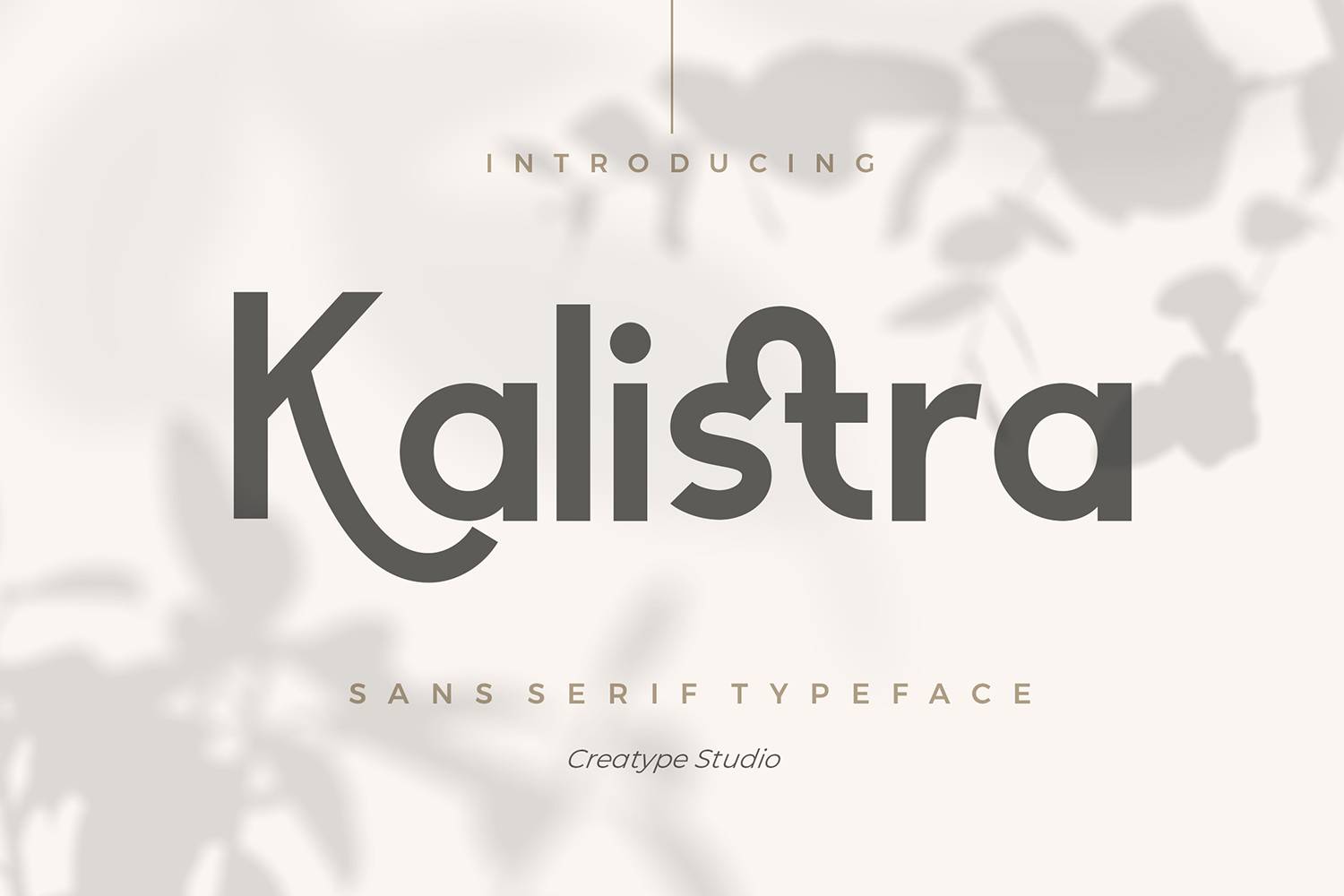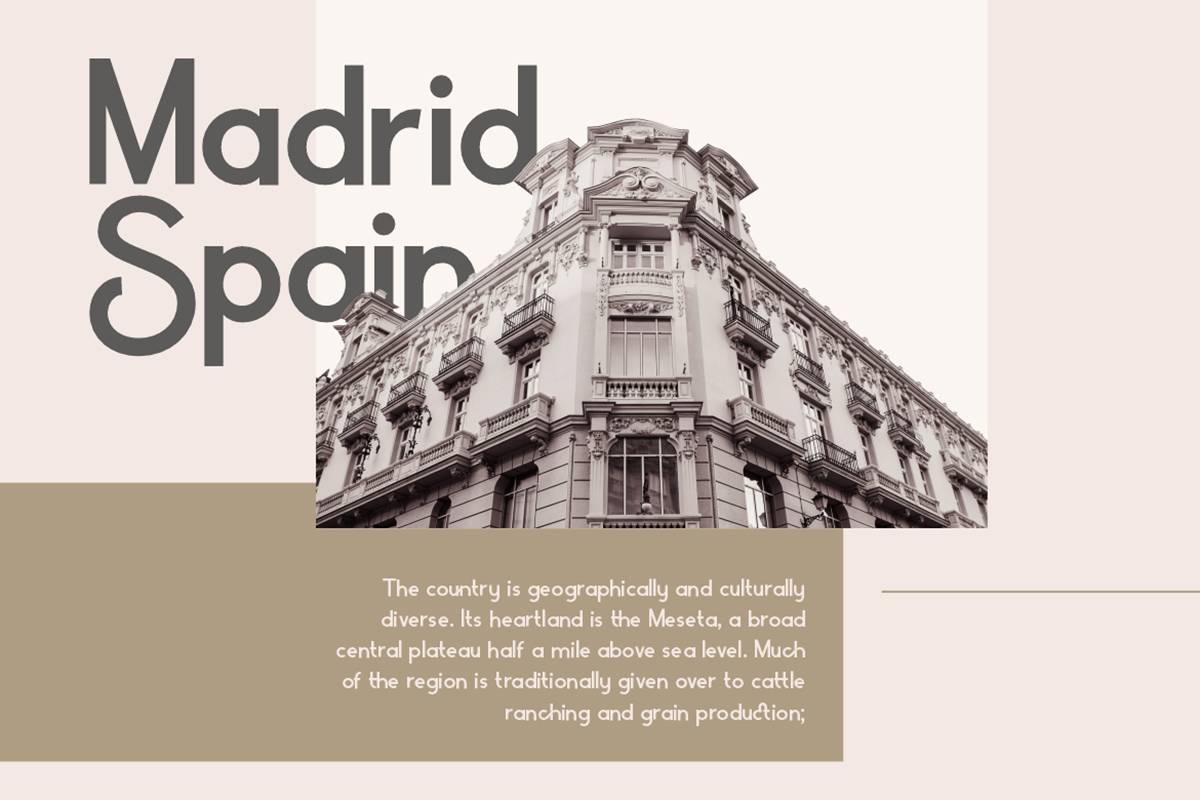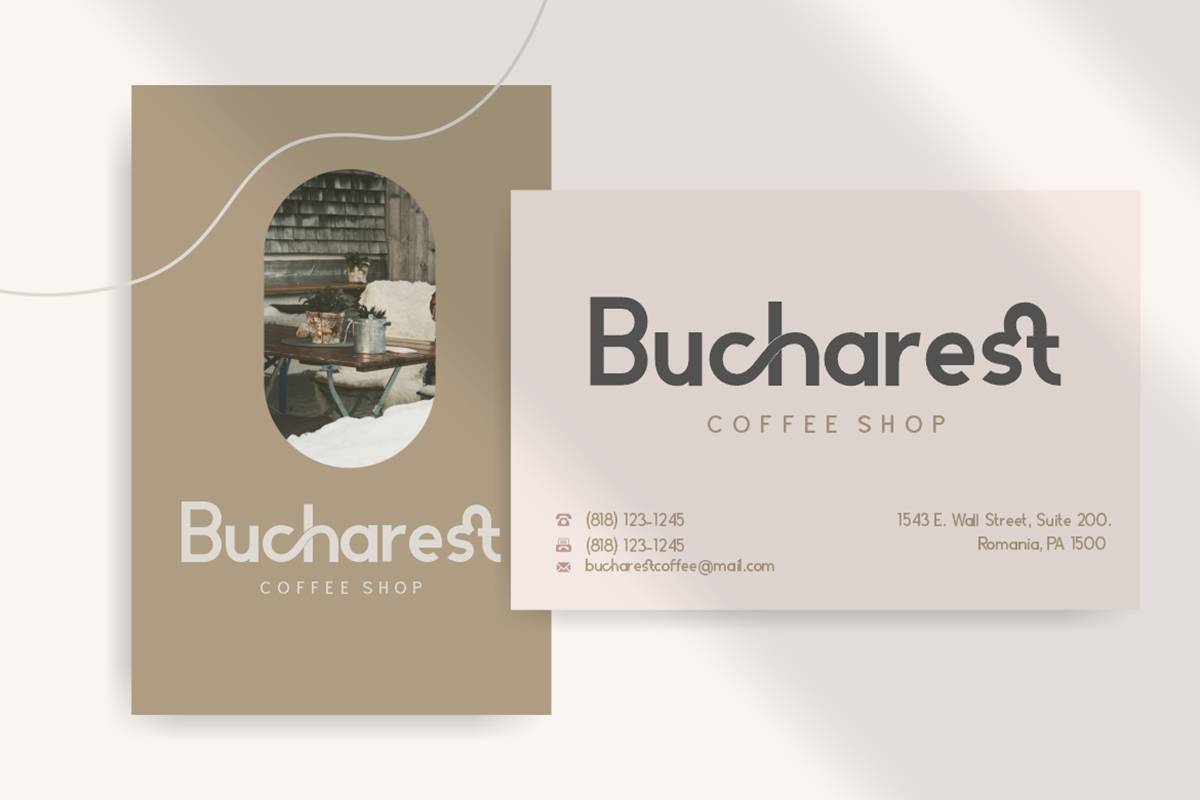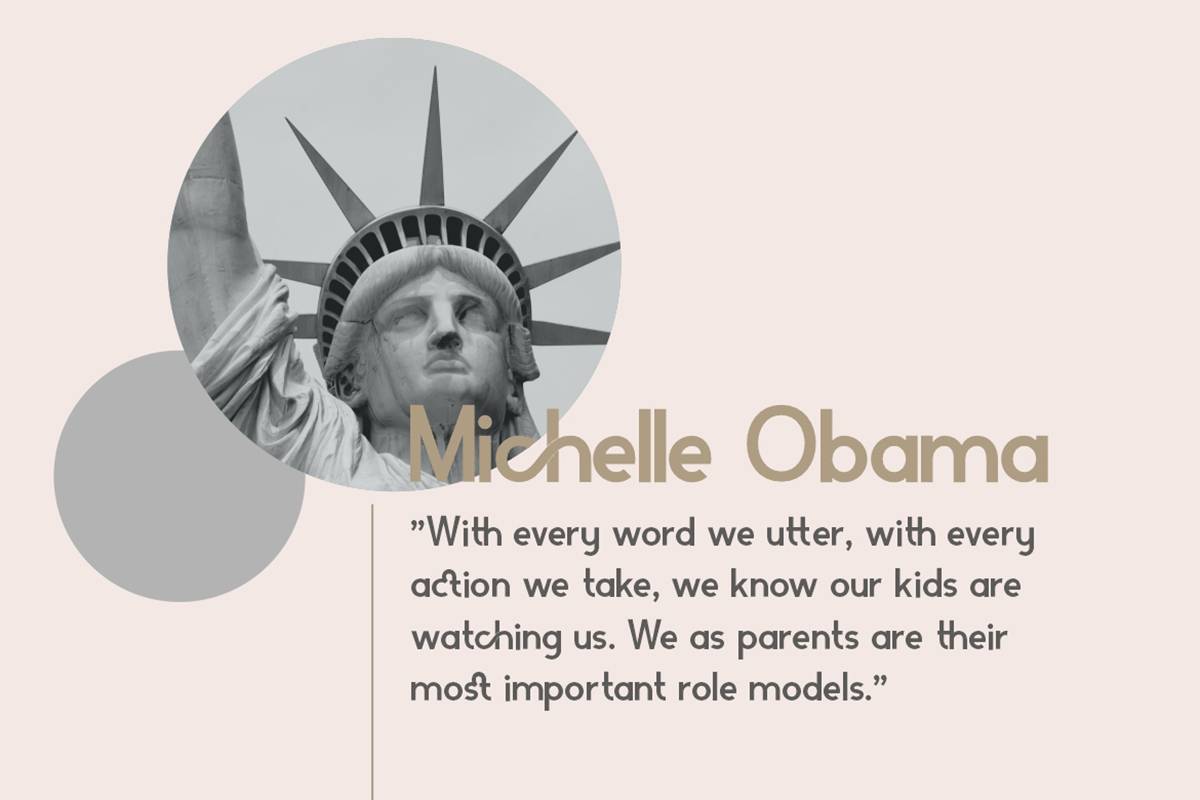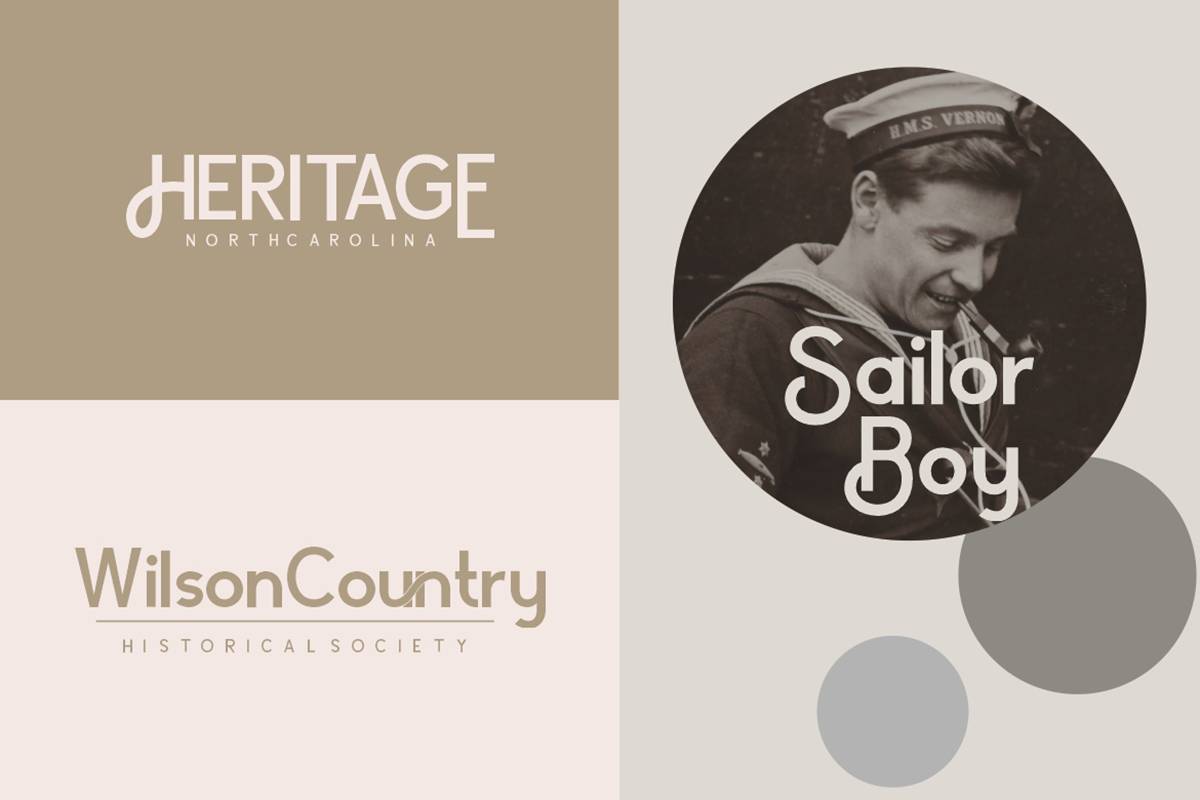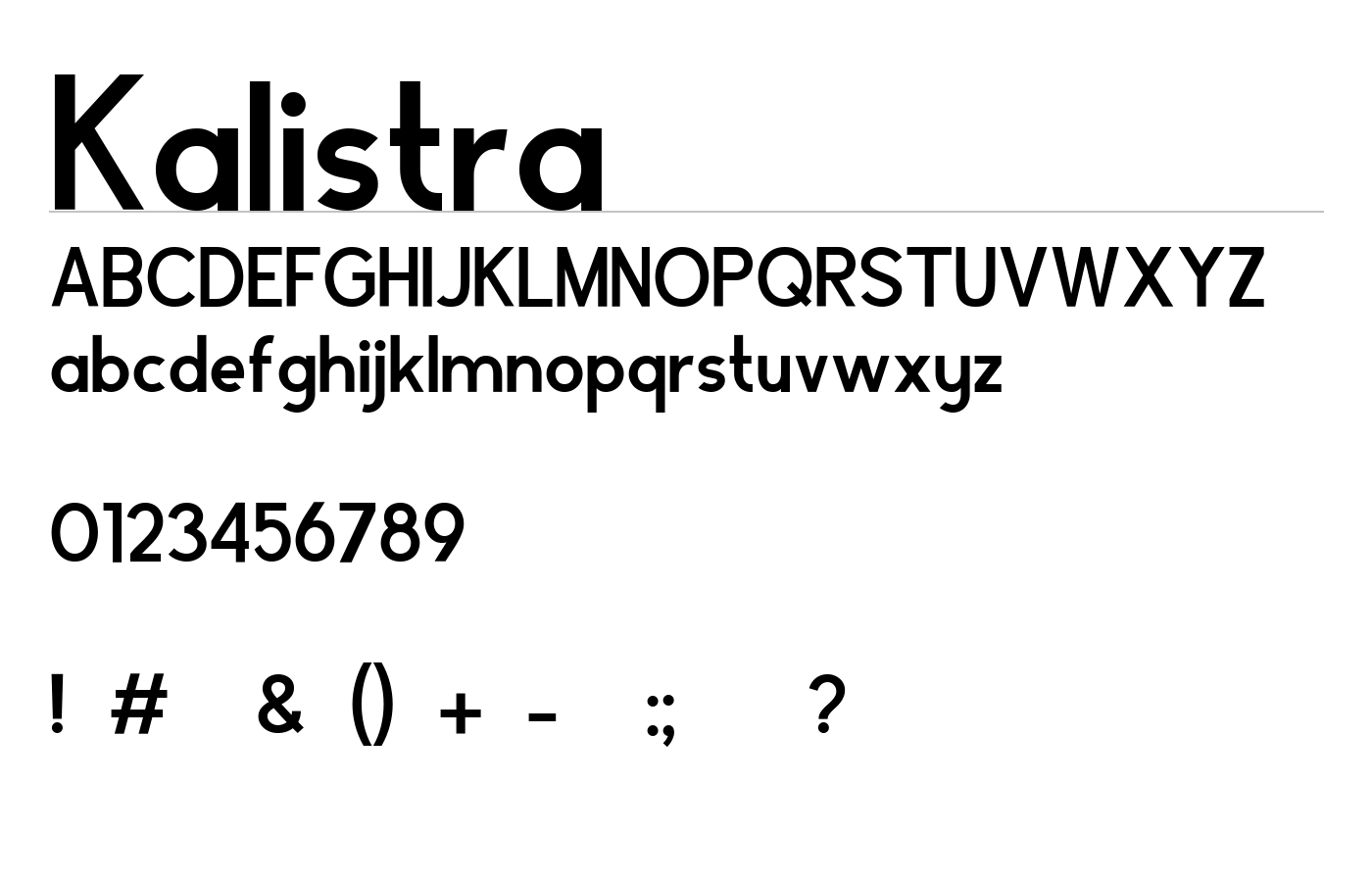
Kalistra is a clean, geometric sans serif font characterized by its medium weight, normal width, and balanced x-height, giving it a modern and approachable look. Its sharp, consistent strokes and simple letterforms with distinctive touches, like the single-story “a” and the unique tail on the “Q,” make it ideal for clear, stylish branding or editorial use. Kalistra works well for headlines, logos, and contemporary web design, where readability and a sleek, professional aesthetic are key.
Kalistra Font
About Kalistra Font